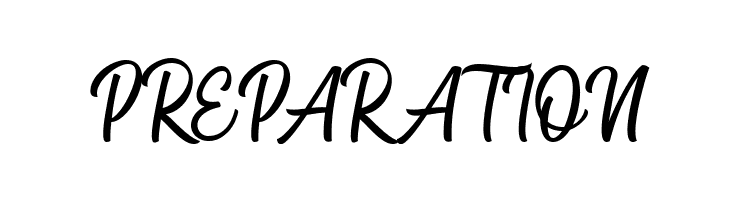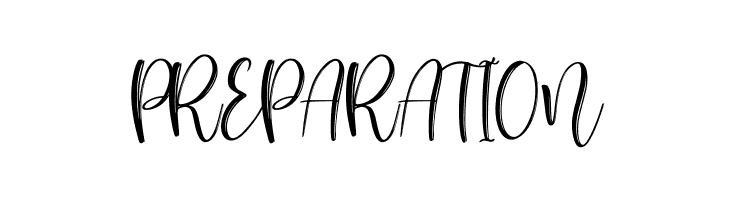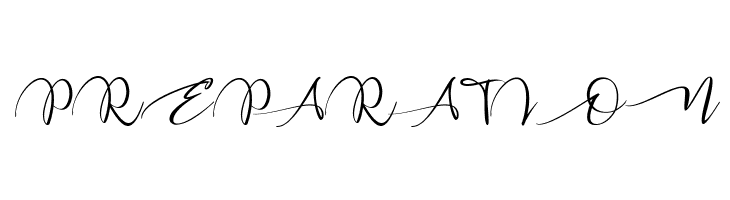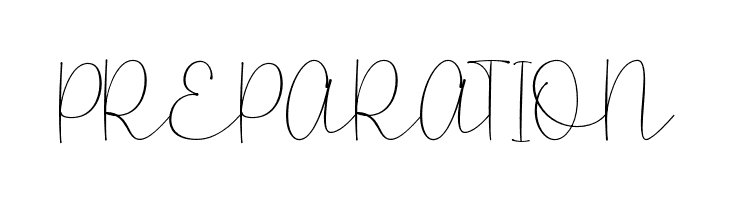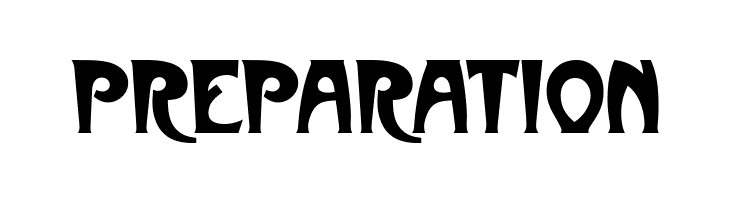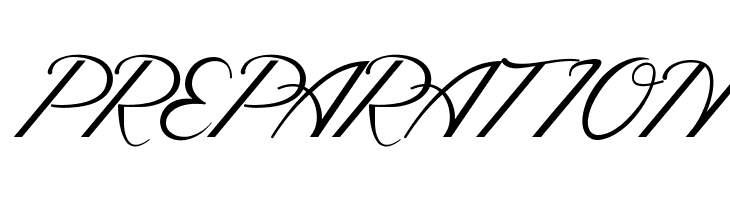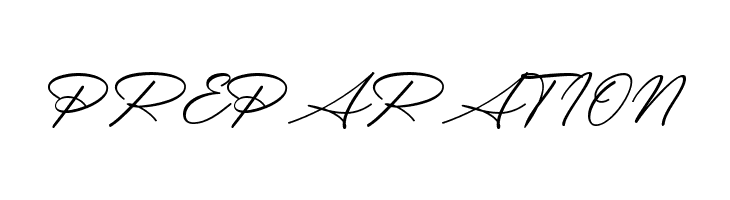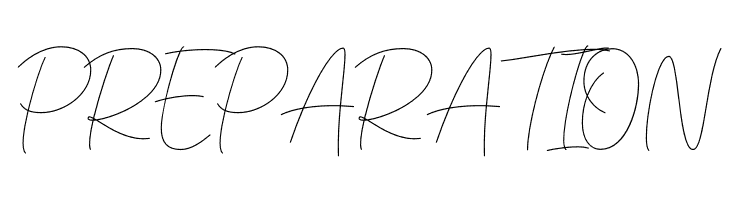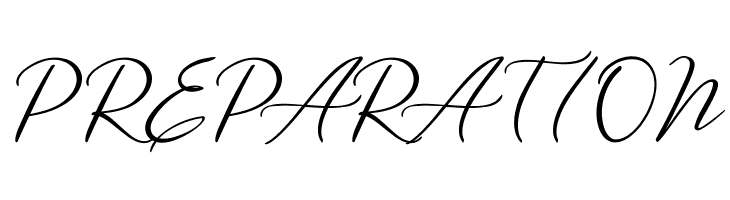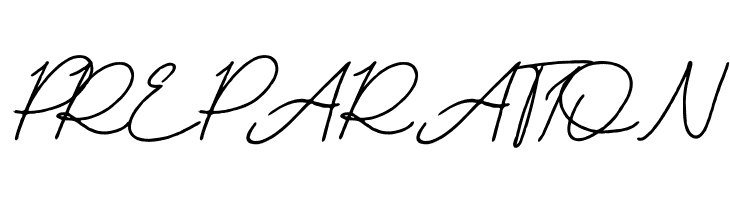
A graceful script font with flowing, cursive letters and consistent stroke width.
Elegant handwritten script font.
An elegant script font with flowing, cursive letterforms and a sophisticated style.
A graceful and elegant script font with flowing, cursive letterforms.
A playful, melting-style decorative font with a bold, hand-drawn appearance.
A lively and elegant script font with fluid, connected letterforms.
An elegant script font with flowing lines and intricate swashes.
A bold, gothic-inspired font with sharp serifs and high contrast strokes.
A bold, high-contrast font with a dynamic, italicized style.
A graceful and fluid script font with elegant, flowing cursive letters.
A lively and elegant script font with flowing, cursive letterforms.
A modern serif typeface with high contrast and elegant serifs.
A heavy serif font with strong contrasts and a classic style.
A graceful script font with flowing, cursive strokes and elegant flourishes.
A delicate and flowing script font with elegant, interconnected strokes.
An elegant and fluid script font with a dynamic, cursive style.
A flowing, elegant script font with a modern handwritten style.
A bold, expressive script font with brush-like strokes and a textured, hand-drawn appearance.
A jagged, edgy font with sharp, irregular strokes and a hand-drawn feel.
A lively and elegant script font with fluid, cursive strokes.
An elegant cursive script font with a natural handwritten style.
A graceful script font with flowing, cursive strokes and elegant character design.
A dynamic, scribbled script font with a playful and energetic style.
A bold, flowing script font with expressive strokes and elegant connections.
A dynamic and expressive script font with fluid, cursive strokes.
A bold, expressive script font with modern, dynamic curves.
A bold, cursive font with elegant, interconnected characters and dramatic flourishes.